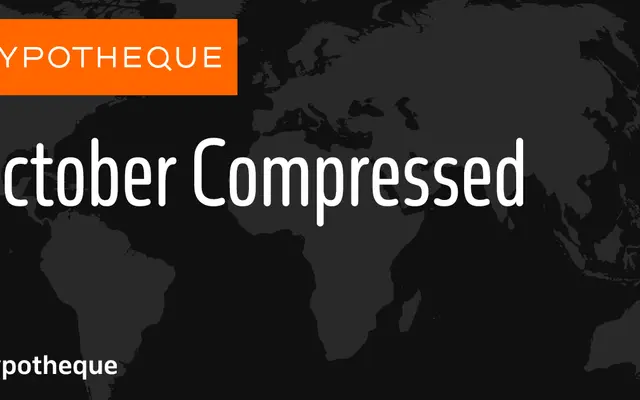
October Compressed
A compressed width cut from Typotheque's October system, offering nine weights with italics as part of a coordinated family spanning three widths.
October Compressed sits at the narrow end of the October type system, which runs across Compressed, Regular and Condensed widths, each with nine weights from Hairline to Black and matching italics. A variable font edition is also available, giving continuous access across the width and weight axes. The system suits editorial and display contexts where consistent typographic voice is needed across tightly packed and open settings alike.
October Compressed is a compressed width variant within the October system, a multi-width sans-serif family spanning Compressed, Regular and Condensed widths with grotesque characteristics across a wide weight range.